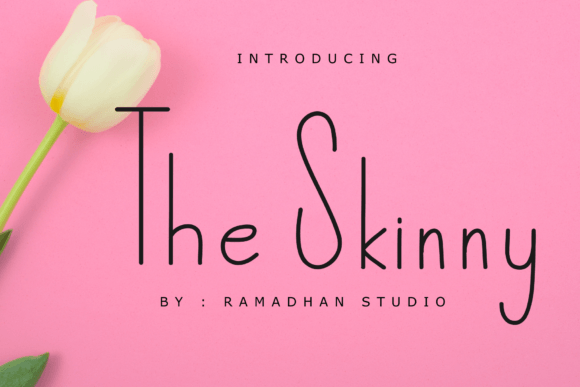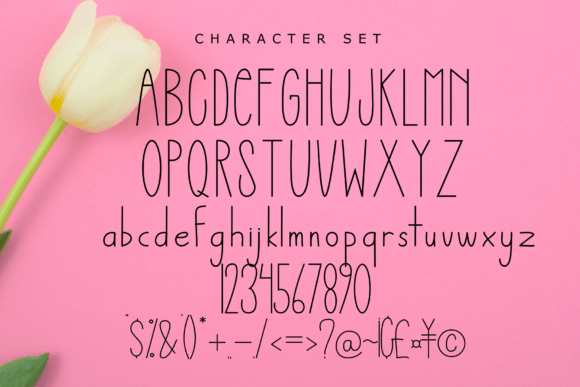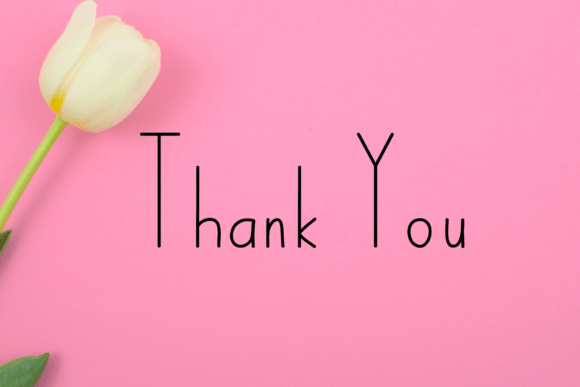
The Skinny Font
About The Skinny Font
**Elevate Your Designs with “The Skinny” Sleek Handwritten Sans Serif Font**
“The Skinny” is a sleek and sophisticated handwritten sans-serif font that brings a clean and polished feel to your design projects. Here’s how you can use “The Skinny” to enhance your creations with its minimalist and elegant style:
1. **Logos:** Create modern and minimalist logos with “The Skinny.” Its clean lines and contemporary look make it perfect for businesses and brands aiming for a sleek and professional image.
2. **Branding:** Establish a consistent and sophisticated brand identity using “The Skinny.” Use it for all your branding materials, including business cards, letterheads, and packaging.
3. **Editorial Design:** Enhance editorial layouts for magazines, newspapers, and newsletters with “The Skinny.” Its neat and well-arranged letters provide a clean and easy-to-read typographic solution.
4. **Websites:** Incorporate “The Skinny” into website design for a crisp and modern appearance. It’s ideal for headers, navigation menus, and body text, ensuring a harmonious and readable online experience.
5. **Product Packaging:** Design product labels and packaging with “The Skinny” to achieve a minimalist and upscale look. Its simplicity enhances product presentation and communicates quality.
6. **Posters and Flyers:** Use “The Skinny” for event posters, flyers, and promotional materials. Its clean aesthetic ensures that your message stands out and remains legible.
7. **Social Media Graphics:** Create sleek and professional social media posts and banners with “The Skinny.” Its minimalist style pairs well with various content types, from quotes to product announcements.
8. **Stationery:** Design elegant stationery sets, including notecards, envelopes, and invitations, using “The Skinny.” Its simplicity adds a touch of sophistication to personal and professional correspondence.
9. **Product Catalogs:** Showcase products in catalogs and brochures with “The Skinny.” Its clean lines provide an organized and visually pleasing layout for product descriptions and images.
10. **Signage:** Use “The Skinny” for signage in both indoor and outdoor settings. Its clarity and simplicity ensure that information is easy to read and visually appealing.
11. **Typography Pairing:** Combine “The Skinny” with other typefaces to create typographic harmony in your designs. Pair it with script fonts, serifs, or display fonts for contrast and balance.
12. **T-shirts and Apparel:** Design stylish and minimalistic apparel graphics with “The Skinny.” Its clean lines and readability make it suitable for text-based designs on clothing.
13. **Digital Presentations:** Elevate your digital presentations with “The Skinny.” Use it for slide titles, headings, and bullet points to maintain a professional and organized appearance.
14. **Menu Design:** Create clean and stylish menus for restaurants and cafes with “The Skinny.” Its sleek typography complements food and beverage descriptions.
15. **Quotes and Art Prints:** Showcase inspirational quotes and artwork with “The Skinny.” Its understated elegance allows the content to shine while adding a touch of sophistication.
“The Skinny” is a versatile font that brings a sense of refinement and simplicity to your designs. Its sleek and clean appearance ensures that your messages are communicated with clarity and style. Whether your project is formal or informal, “The Skinny” offers a polished typographic solution that adds a touch of sophistication to any design.